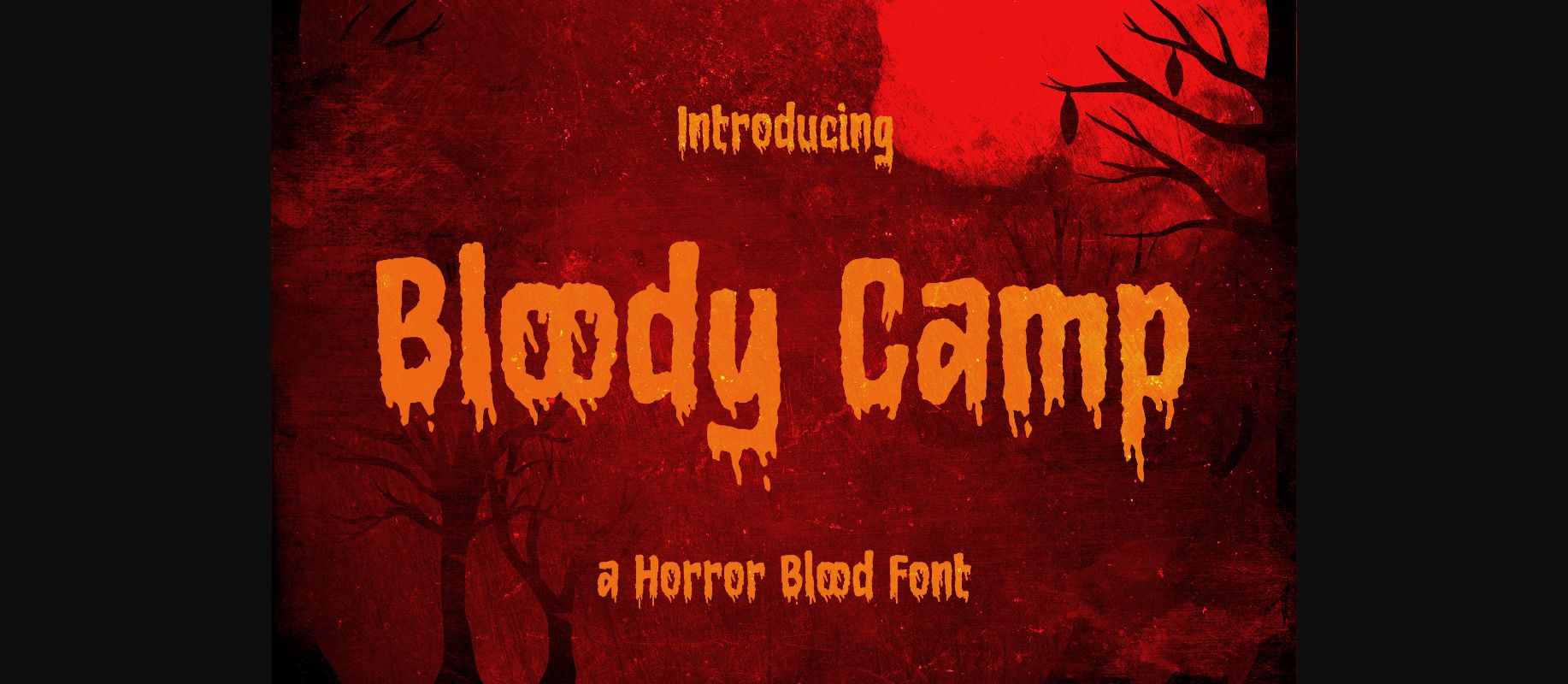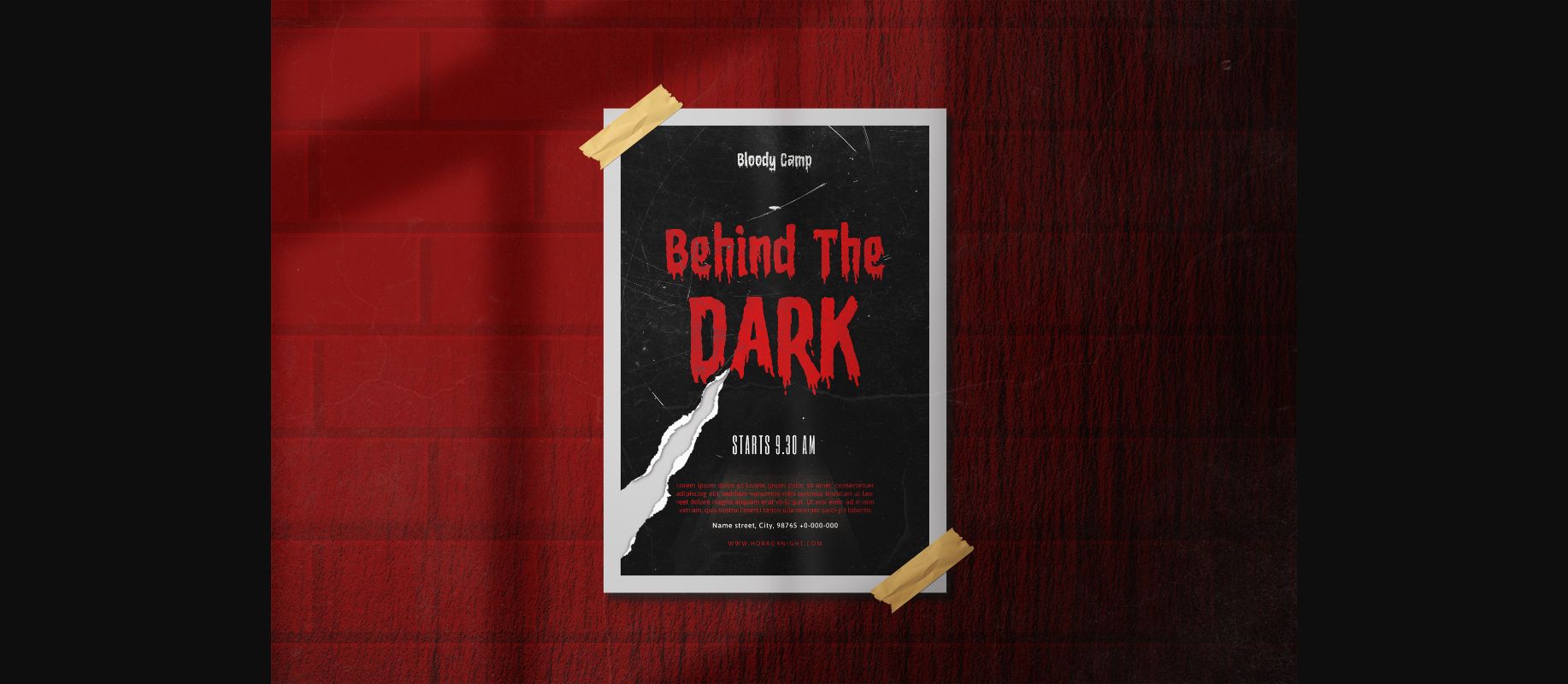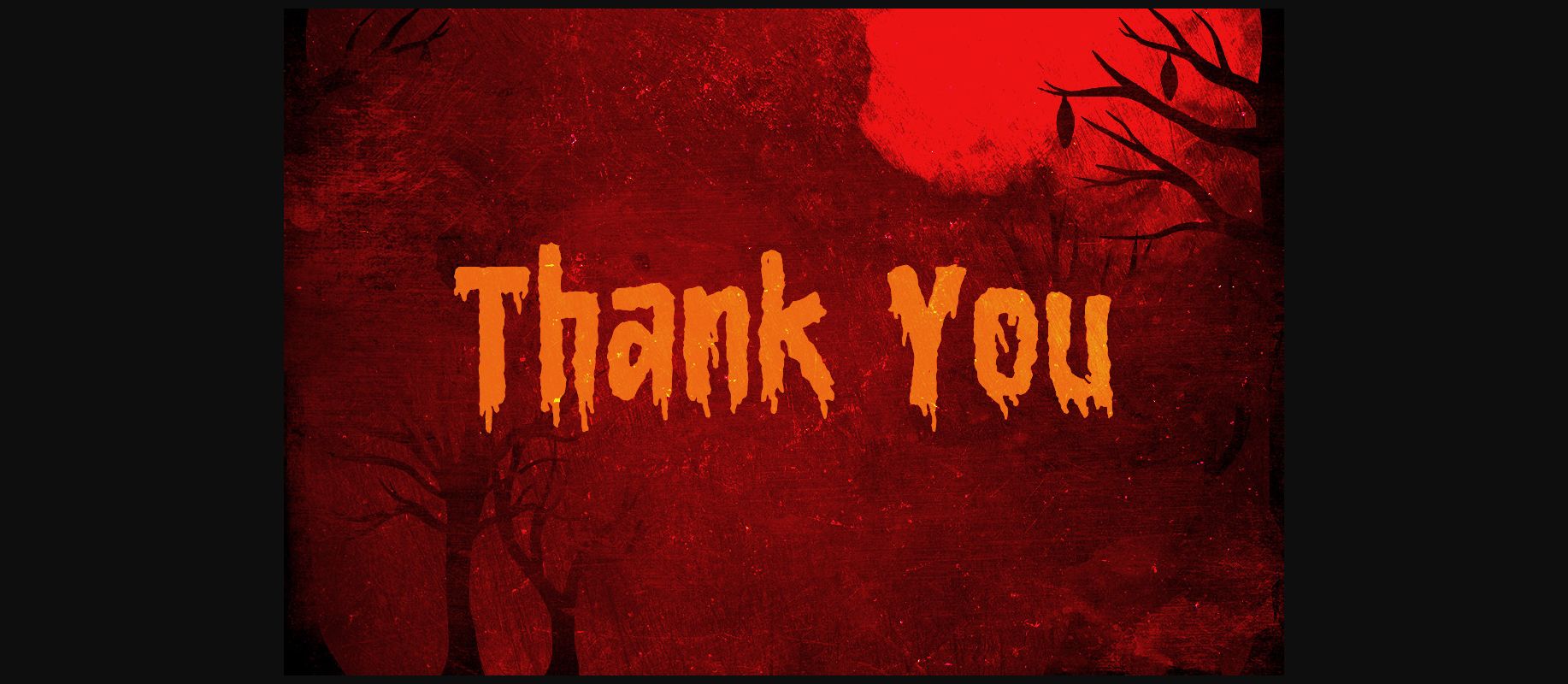
About Bloody Camp Font
Bloody Camp is a creative decorative font featuring melting characters that give off a scary feel. It is suitable for thriller projects, Halloween invitations, horror games, spooky t-shirts, or any other scary crafts!